Handmade Type Workshop: Techniques for Creating Original Characters and Digital Fonts
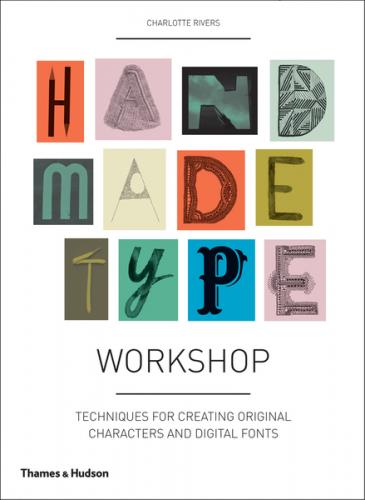
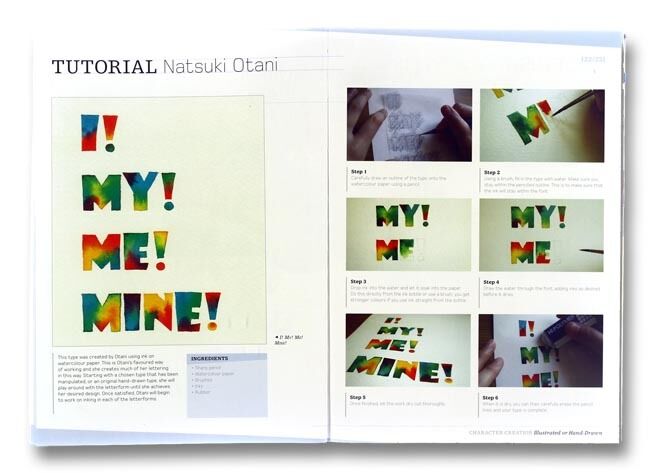
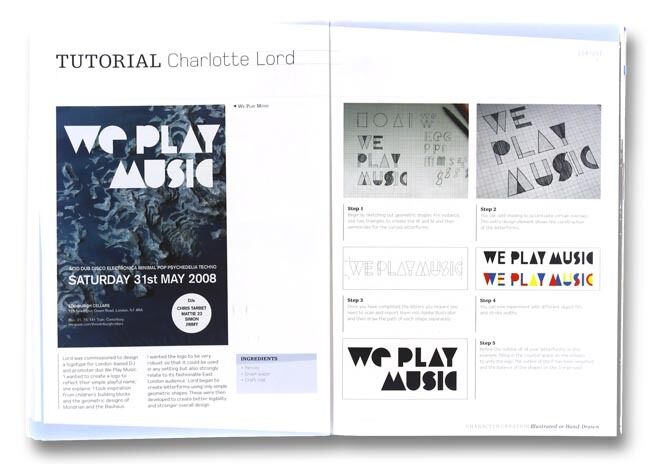
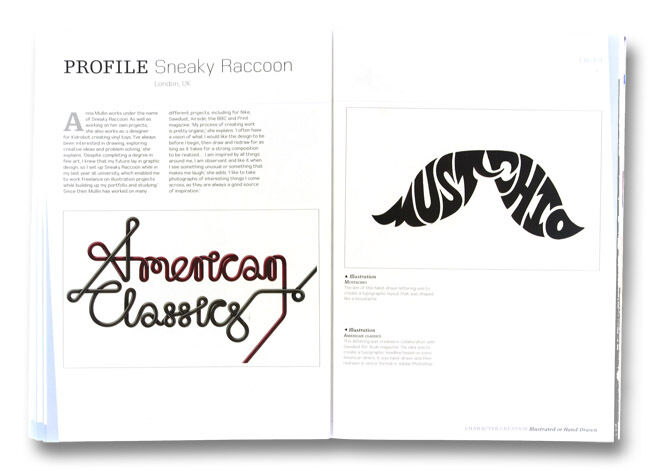
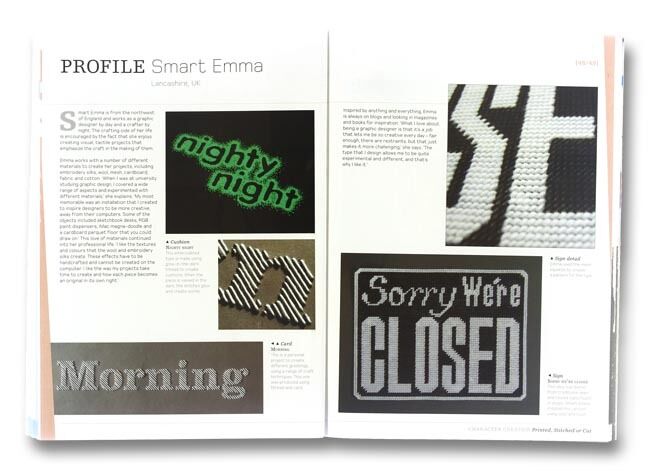
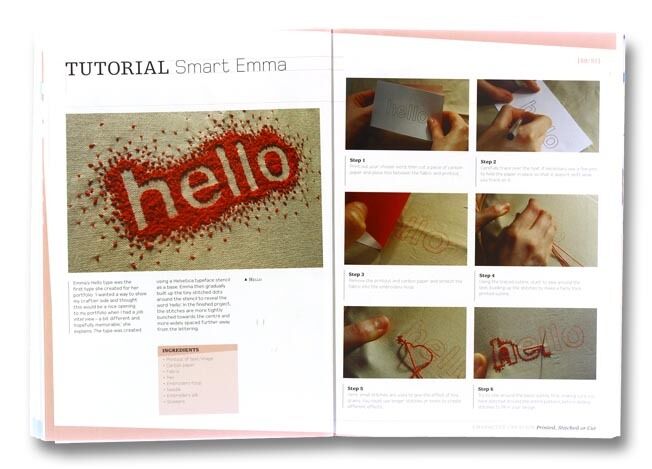
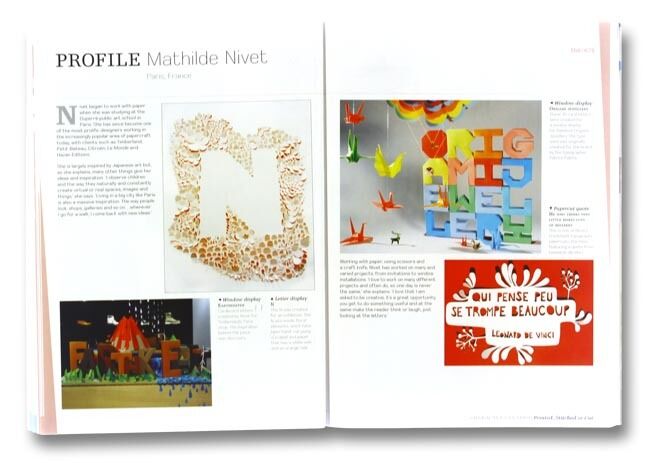
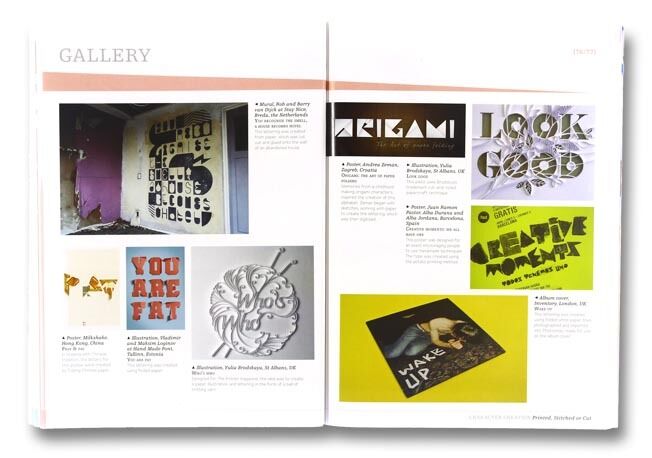
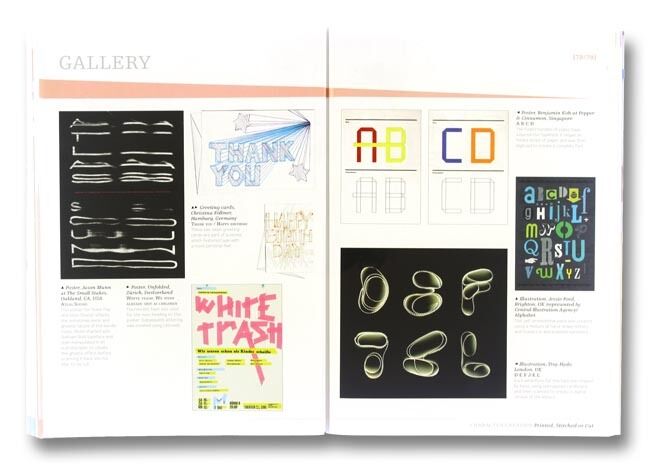
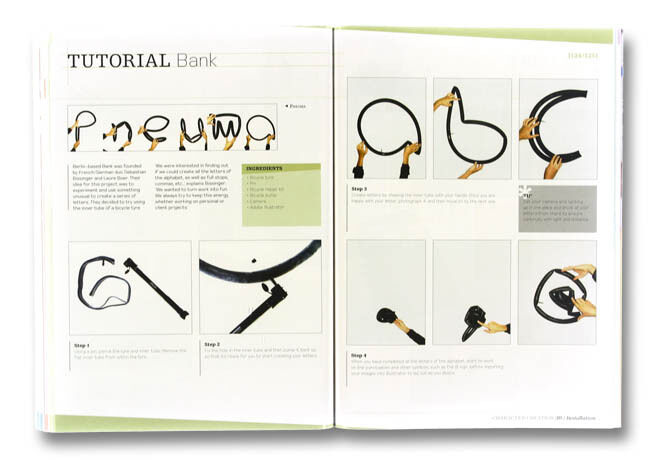
Type and font creation are among the most important aspects of graphic design.
Handmade Type Workshop is ideal for anyone looking to move beyond existing typography and fonts to create, explore and use original or customized letterforms.
This is a comprehensive, practical guide to handcrafting creative fonts, packed with tutorials, profiles and inspirational showcases from a range of international contemporary practitioners, including Lisa Congdon, Toshi Tajima, Mathilde Nivet, Tyrone Ohia, Honey Design, Amandine Alessandra and many more.
Taking font creation back to basics, Handmade Type Workshop explores innovative ways to design contemporary lettering of all kinds, examining everything from classic design examples to 3D and illustrated fonts, digital lettering and radical conceptual alphabets.